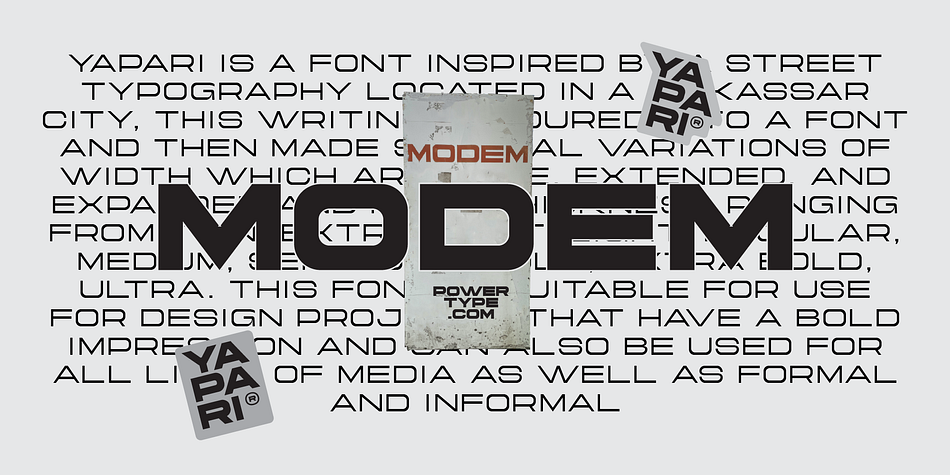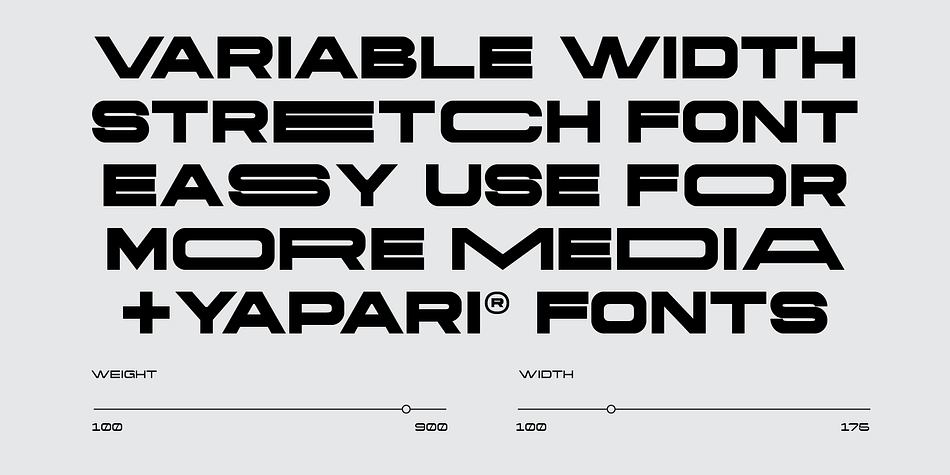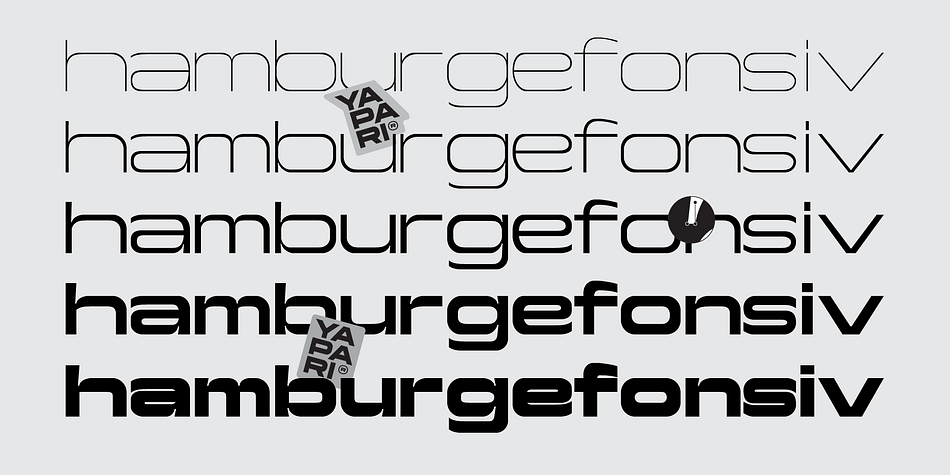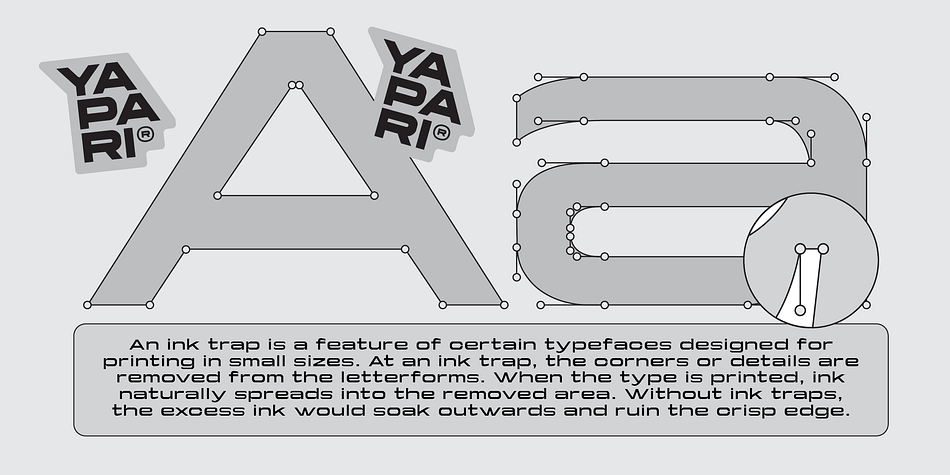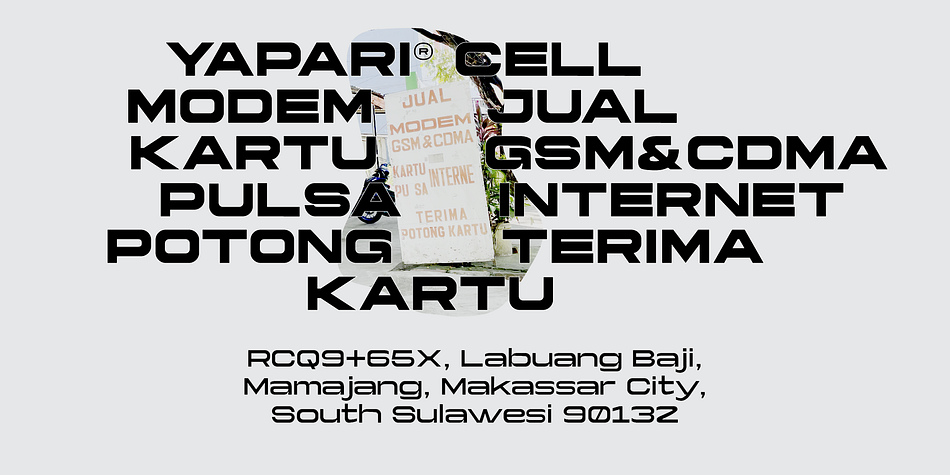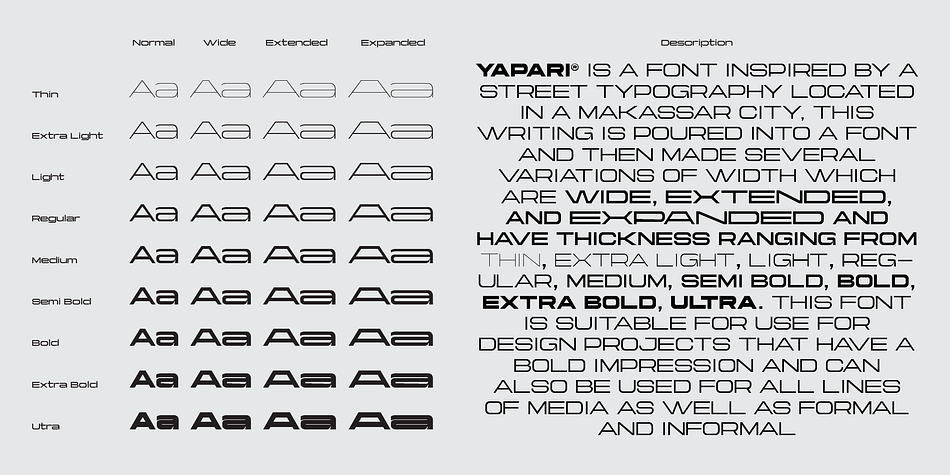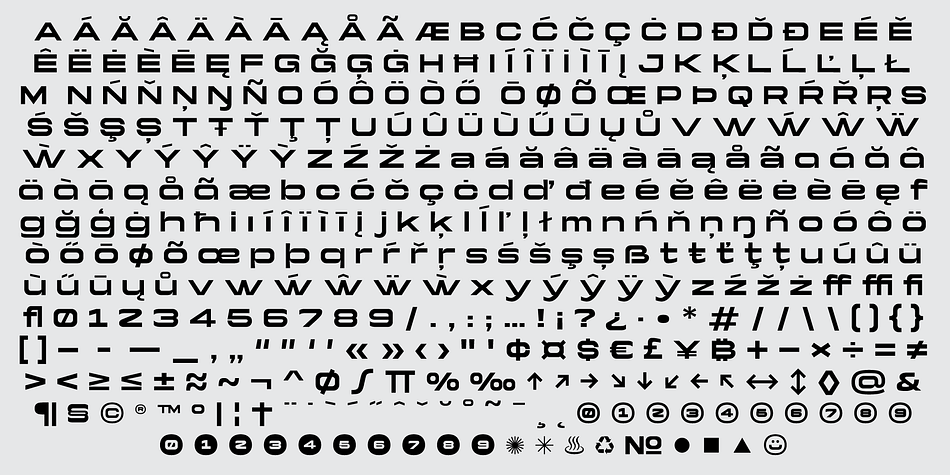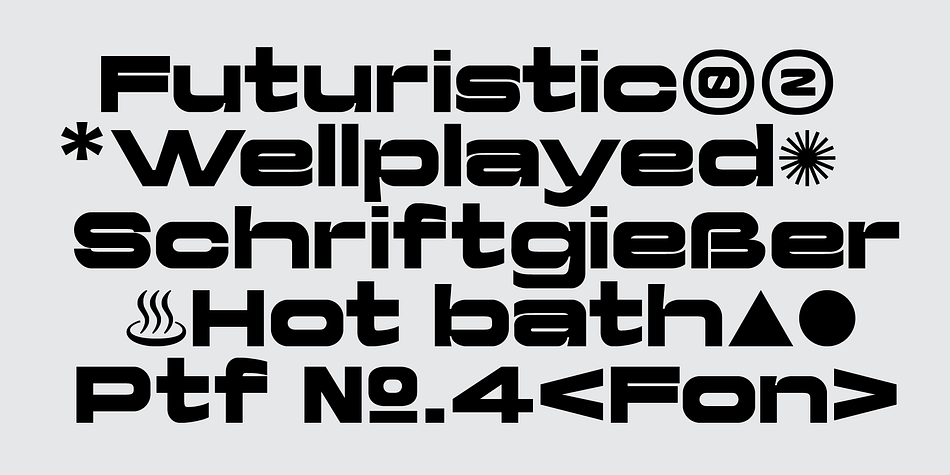
Yapari
Designed by Teguh Arief, Yapari is a display sans font family. This typeface has thirty-six styles and was published by Power Type Foundry.
Yapari is a font inspired by street typography located in a Makassar city, this writing is poured into a font and then made several variations of width which are wide, extended, and expanded kind of stretched font then have a thickness ranging from thin, extra light, light, regular, medium, semi bold, bold, extra bold, ultra. This font is suitable for use for design projects that have a bold impression and can also be used for all lines of media as well as formal and informal